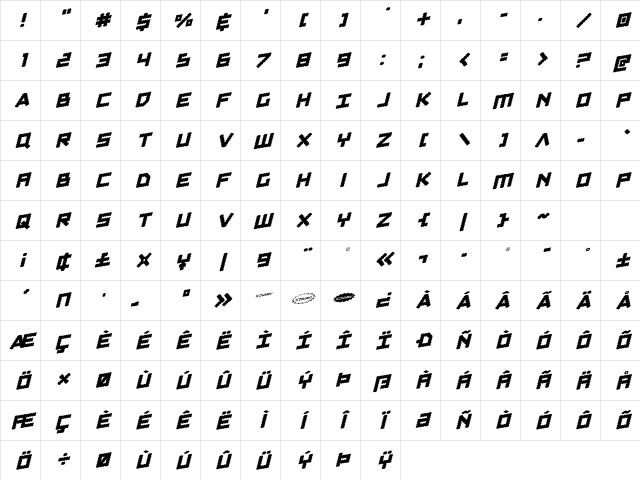
Complete Obsidian Blade Rotalic Italic glyph index. Displaying only characters natively supported by Obsidian Blade Rotalic Italic font.
Obsidian Blade Rotalic is a composed and adaptable typeface that performs quietly and consistently across a wide range of design contexts. The slanted form adds forward momentum and visual energy.